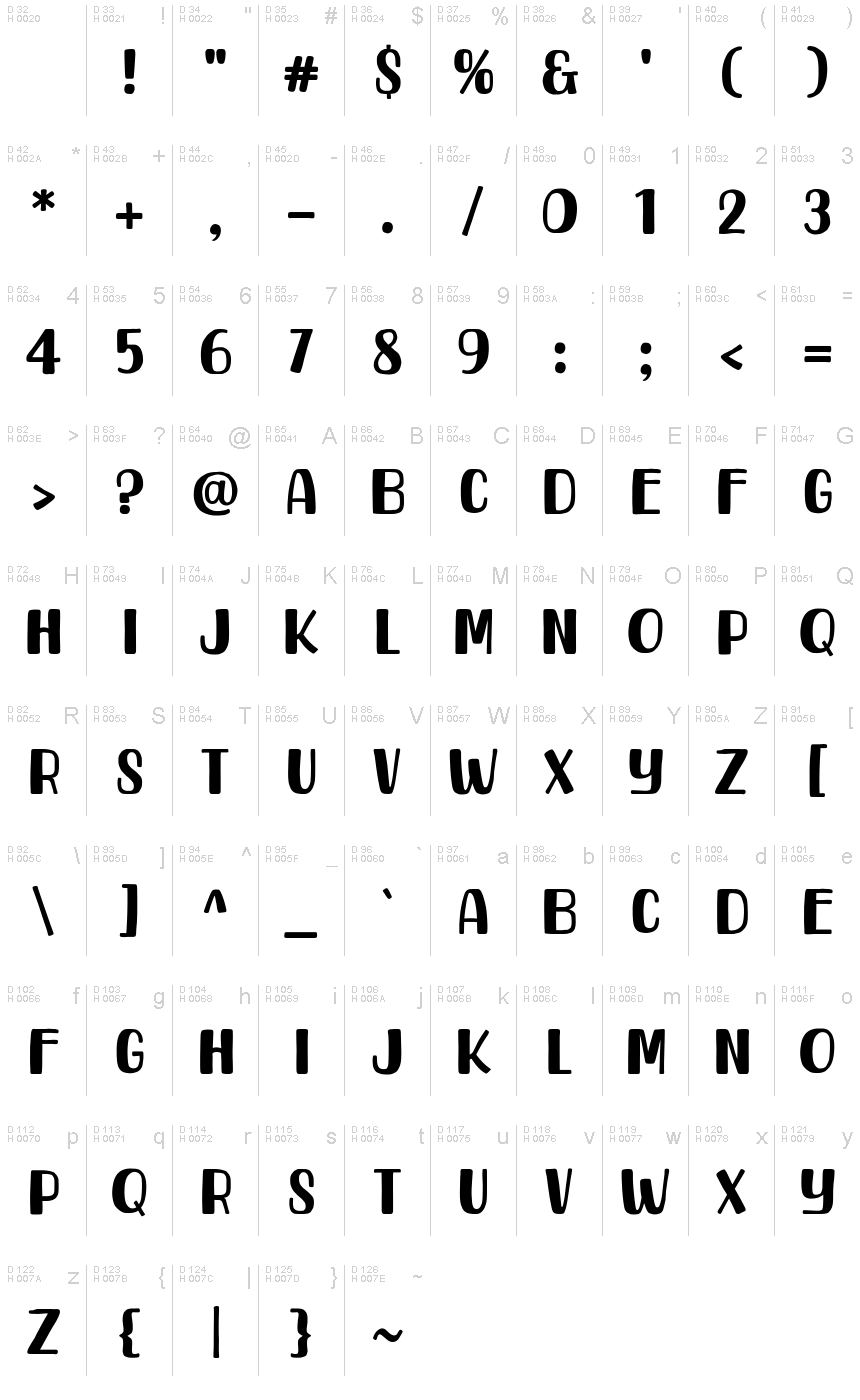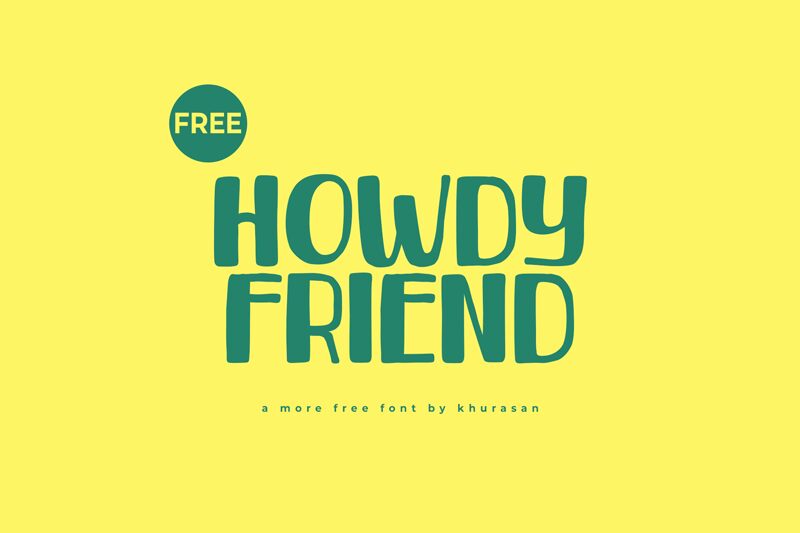
Howdy Friend
Howdy Friend font by Khurasan captures the essence of playful cartoon-style design in a charming and energetic manner. This bold display typeface features retro, rounded letters inspired by bubble fonts with exaggerated curves filled with happiness and joy.
Howdy Friend is perfect for magazines, editorial headings, product packaging design, posters, book covers, branding projects, logos, signage designs for shops and stores as well as event designs such as wedding invitations or greeting cards. It can be used in motion graphics along with video content animation.